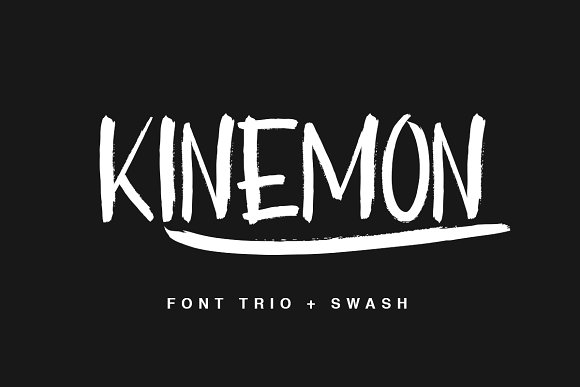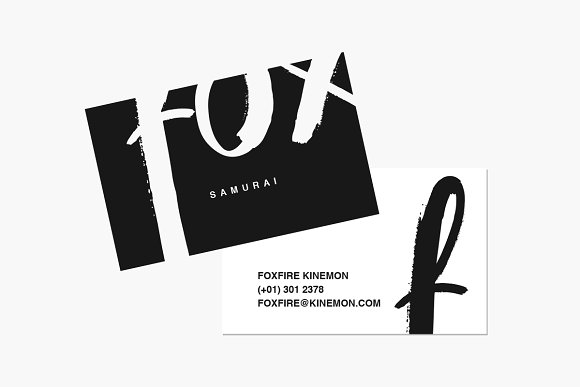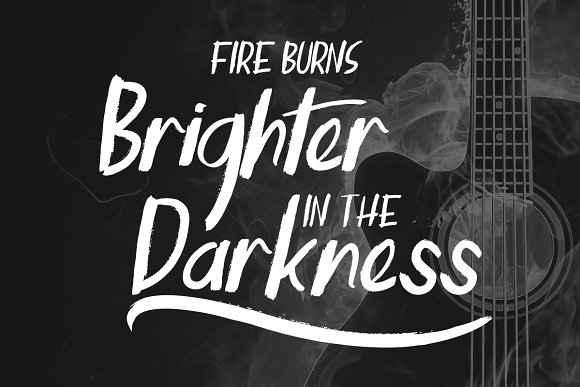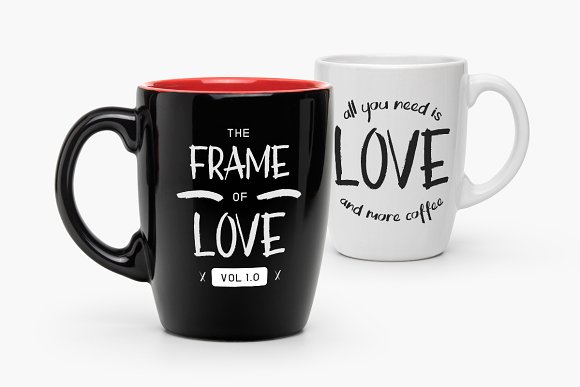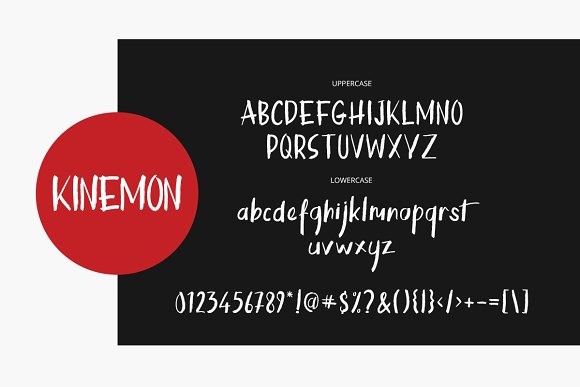
HomeScript FontsKinemon Font Script Fonts Kinemon Font FacebookXPinterestWhatsApp Kinemon Font Poster 2 Kinemon Font Poster 3 Kinemon Font Poster 4 Kinemon Font Poster 5 About Kinemon Font The Kinemont Font Trio is a fun brush font created by the Factory738 foundry. DOWNLOAD ON CREATIVE FABRICAThis font is sold and delivered by Creative Fabrica. Font Canyon may earn a commission if you buy through this link. People also explored Orla Fiola Font Emma Font Jasmine Lovely Font Fox Candle Haeock Family Font Mattina Font Love Kayalla Font Habriella Font Yattana Udehie Font 297 0 TagsKinemon Font Previous articleWonderbar FontNext articleJacks Font LEAVE A REPLY Cancel reply Comment: Please enter your comment! Name:* Please enter your name here Email:* You have entered an incorrect email address! Please enter your email address here Website: Save my name, email, and website in this browser for the next time I comment. Personal Use Free Planning Personal Use Free Read more about this font Gunplay Personal Use Free Read more about this font Lumber Personal Use Free Read more about this font Rionaldo Angelo Personal Use Free Read more about this font BLOG Free vs Paid Fonts: Why Investing in Premium Fonts Is Worth It Free vs Paid Fonts: Why Premium Fonts Are Worth It in 2025 The debate of free vs paid fonts continues in the design world. While... Exploring Font Trends 5 Fonts That Will Dominate Design Trends in 2026 Where to Buy American Fonts Online in 2024